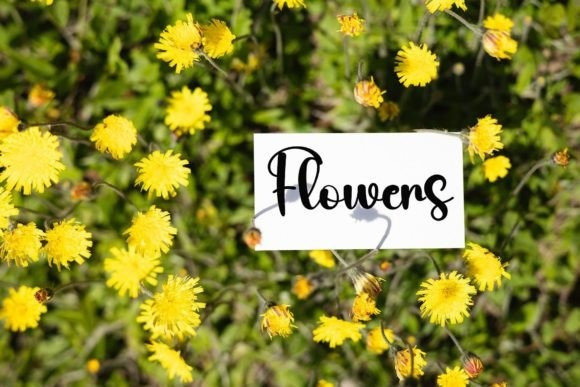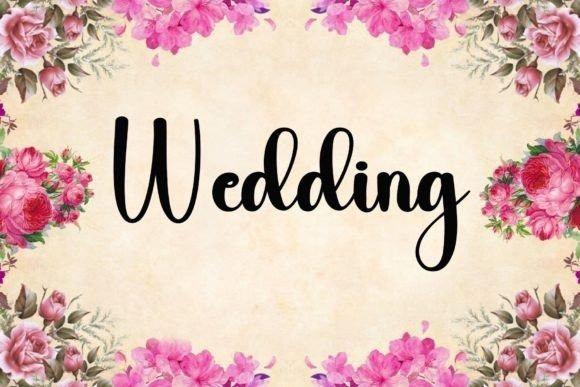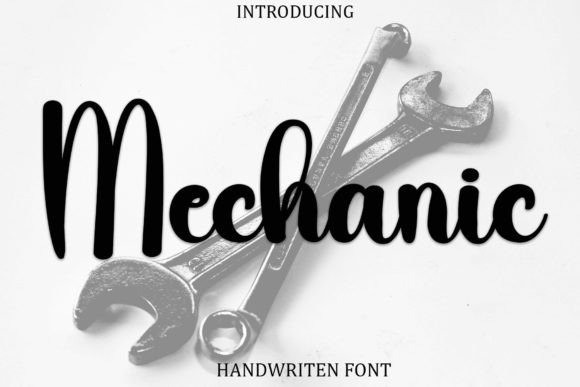
Mechanic Script Font
Mechanic Script Font,  is a delicate and well-rounded handwritten font, perfect for crafty projects that need authentic typography! Use it for wedding invitations, birthday cards, personal branding, elegant logos, or more.x